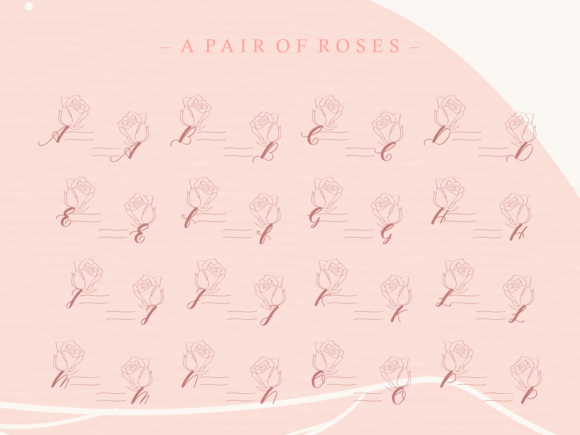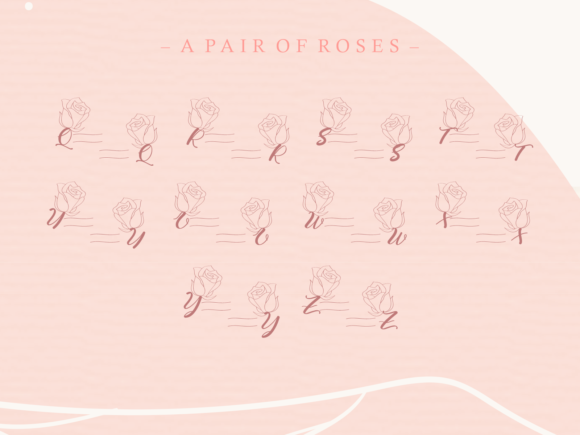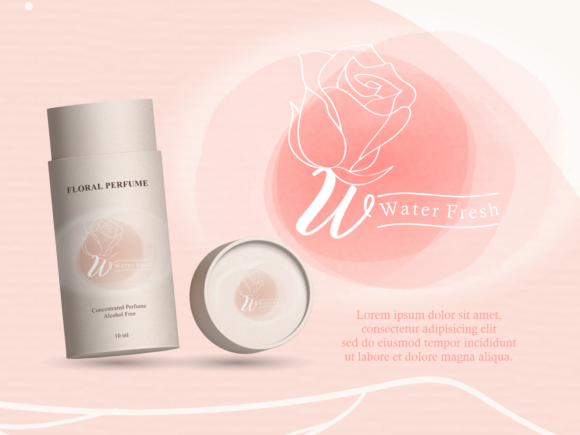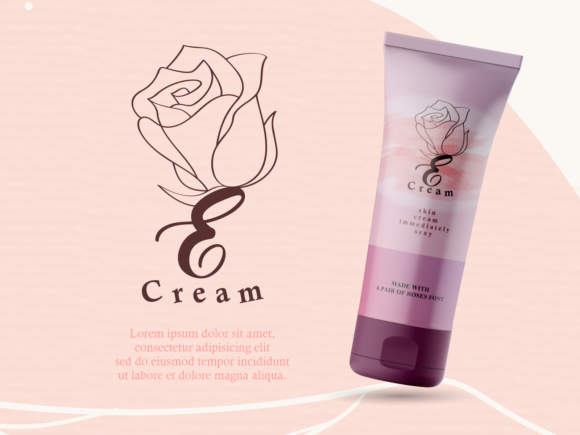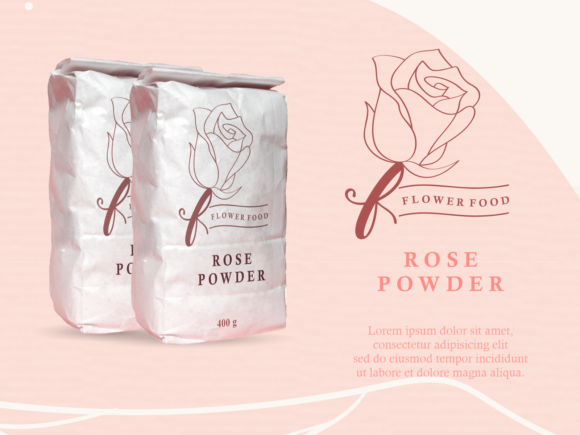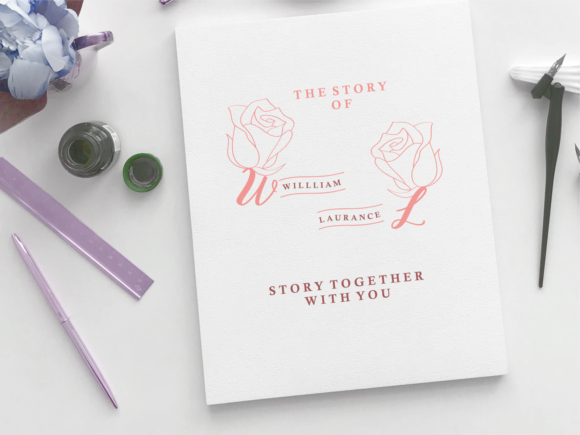
A Pair of Roses Font: The Ultimate Decorative Font for Your Creative Projects
Are you a designer, crafter, or DIY enthusiast looking for a unique and angelic decorative font to elevate your creative projects? Look no further than A Pair of Roses Font! This stunning font features a beautiful red rose as an ornament, adding a touch of elegance and sophistication to any design. In this article, we’ll dive into the world of A Pair of Roses Font, exploring its versatility, uses, and benefits for designers and crafters.
What is A Pair of Roses Font?
A Pair of Roses Font is a decorative font that showcases a gorgeous red rose as a central ornament. The font is designed to be incredibly versatile, making it perfect for a wide range of creative projects, from wedding invitations and stationery art to social media posts and more. With its angelic and romantic vibe, A Pair of Roses Font is sure to capture the hearts of designers, crafters, and DIY enthusiasts alike.
Key Features of A Pair of Roses Font
- Unique and Angelic Design: A Pair of Roses Font boasts a one-of-a-kind design featuring a stunning red rose as an ornament, adding a touch of elegance and sophistication to any design.
- Incredibly Versatile: This font is perfect for a wide range of creative projects, from wedding invitations and stationery art to social media posts and more.
- High-Quality Design: The font is designed with high-quality graphics, ensuring that it looks stunning in any design.
Uses of A Pair of Roses Font
A Pair of Roses Font is perfect for a wide range of creative projects, including:
- Wedding Invitations: Add a touch of romance and elegance to your wedding invitations with A Pair of Roses Font.
- Stationery Art: Create beautiful stationery art, including greeting cards, thank-you cards, and more.
- Social Media Posts: Elevate your social media posts with A Pair of Roses Font, perfect for Instagram, Facebook, and more.
- DIY Projects: Use A Pair of Roses Font to add a personal touch to your DIY projects, including crafts, scrapbooking, and more.
Benefits of Using A Pair of Roses Font
By using A Pair of Roses Font, designers and crafters can enjoy a range of benefits, including:
- Unique and Eye-Catching Designs: A Pair of Roses Font helps you create unique and eye-catching designs that stand out from the crowd.
- Professional-Looking Results: A Pair of Roses Font helps you achieve professional-looking results, even if you’re a beginner.
- Increased Creativity: The font’s versatility and beauty can inspire your creativity, helping you come up with new and innovative design ideas.
A Pair of Roses Font is a stunning decorative font that can elevate your creative projects to the next level. With its unique and angelic design, versatility, and ease of use, this font is perfect for designers, crafters, and DIY enthusiasts alike. Whether you’re creating wedding invitations, stationery art, social media posts, or more, A Pair of Roses Font is sure to inspire your creativity and help you achieve professional-looking results. So why wait? Download A Pair of Roses Font today and start creating gorgeous designs that capture the hearts of your audience!